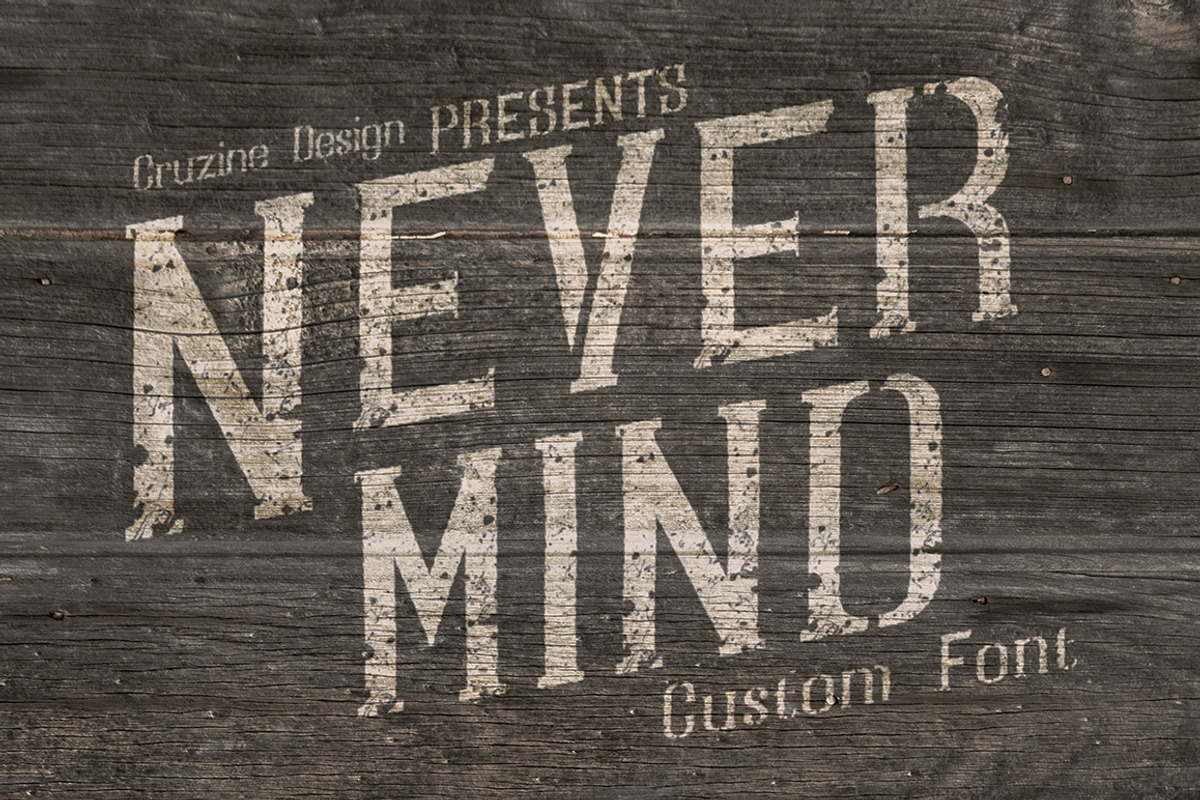
Nevermind Font
Nevermind Font by Cruzine is a font selected for branding, posters, packaging, typography.
Why Nevermind Font is worth a look
Nevermind Font by Cruzine fits naturally into Branding, posters, packaging, typography.